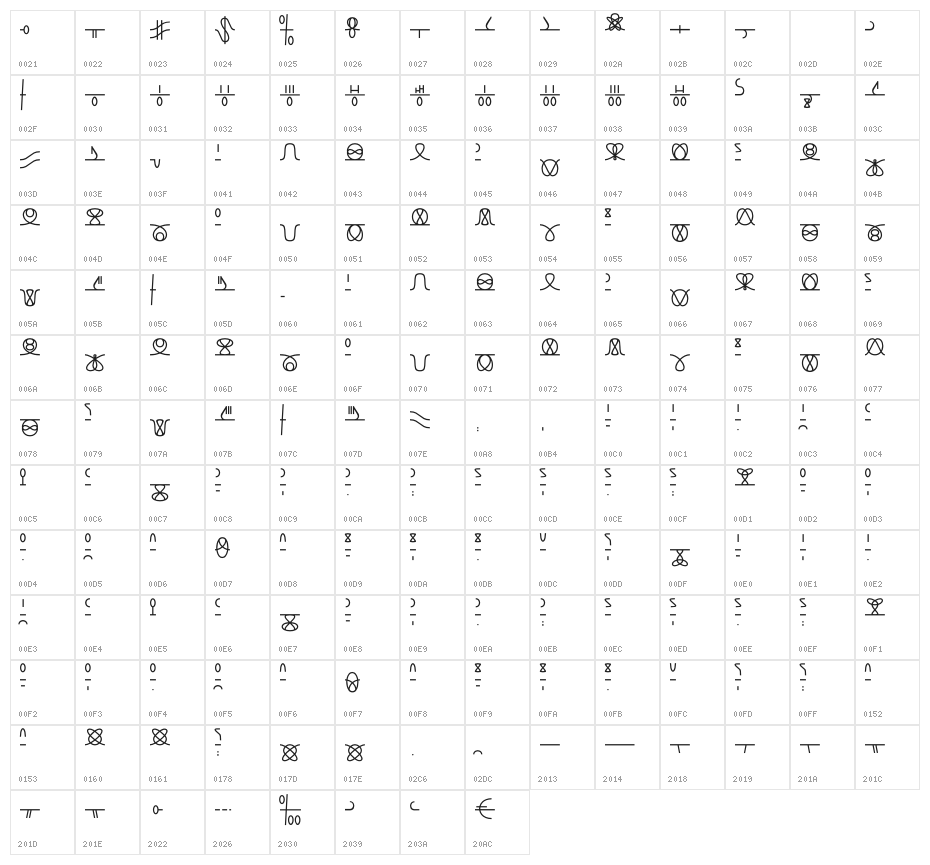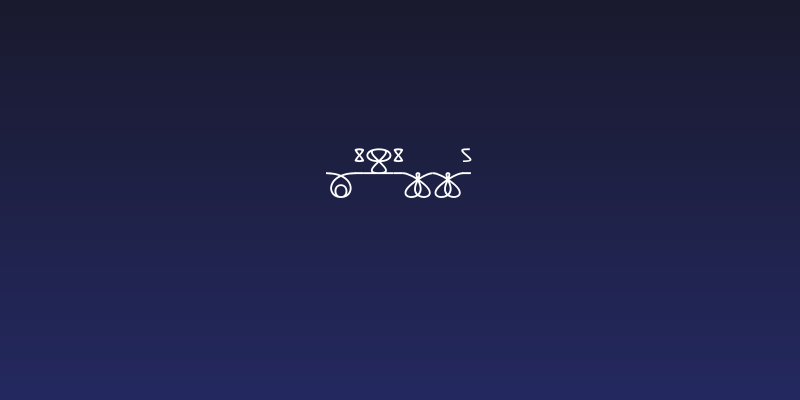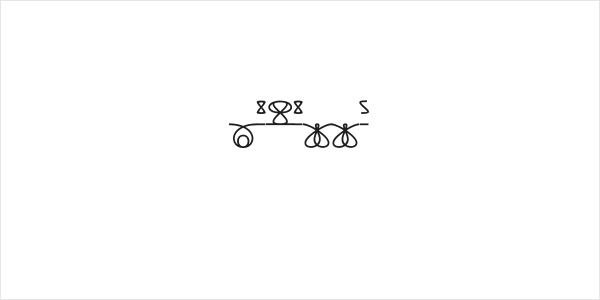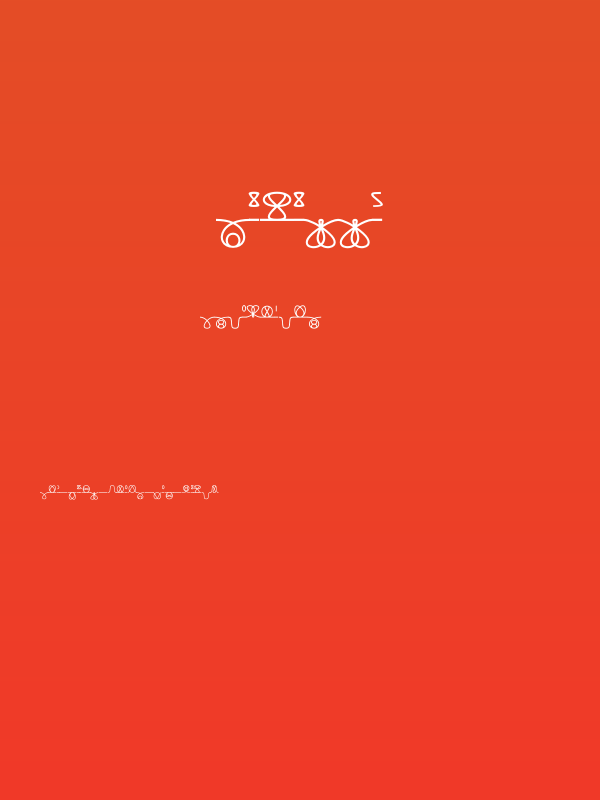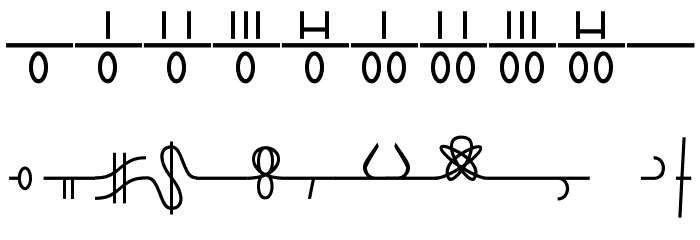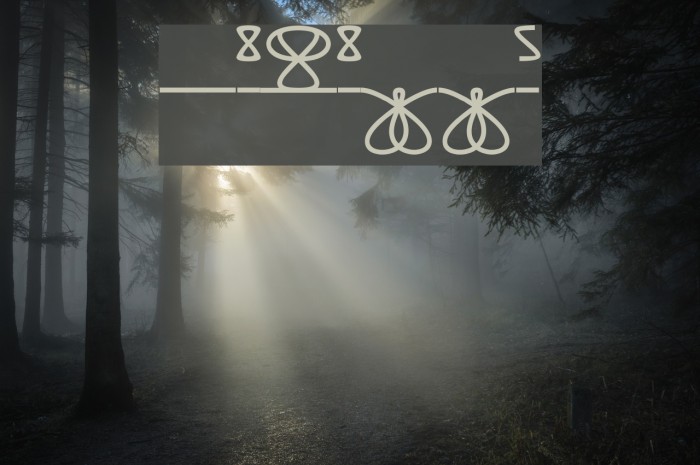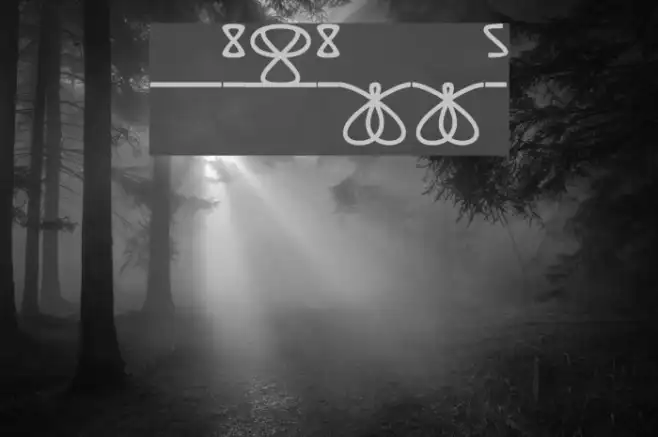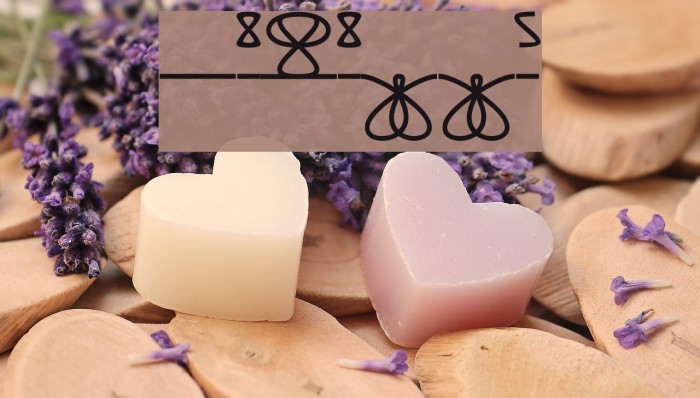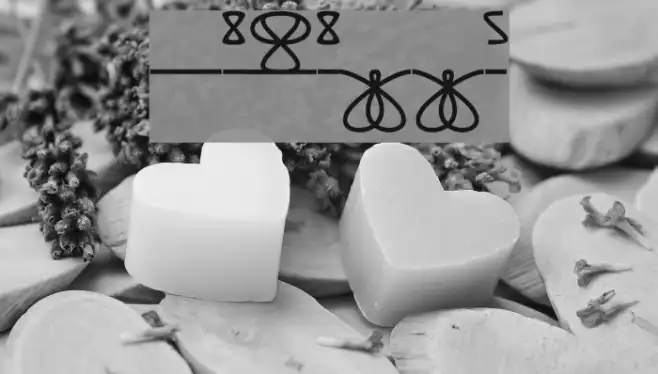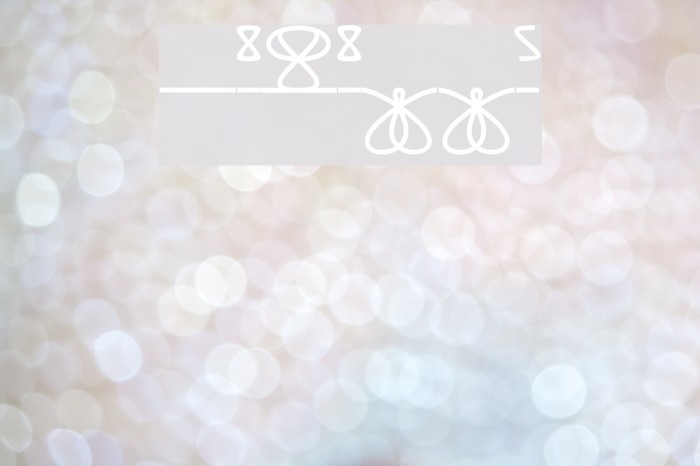
Numukki Font
Numukki Description
This font is a highly decorative and abstract design, characterized by intricate loops and curves that create a sense of fluidity and movement. Each character is uniquely crafted with a whimsical style, making it more of an artistic expression than a traditional typeface. The lines are thin and consistent in weight, contributing to a delicate appearance. The overall design is reminiscent of calligraphic art, with a modern twist that incorporates elements of fantasy and surrealism. This font is not suitable for body text due to its complexity but can be used effectively in creative projects where a unique and eye-catching display is desired.
| Use Case | Logos, Posters, Artistic projects |
| Proposed Projects | This font is perfect for artistic projects, such as posters, album covers, or branding for creative industries. It can also be used in digital art or as a decorative element in graphic design. |